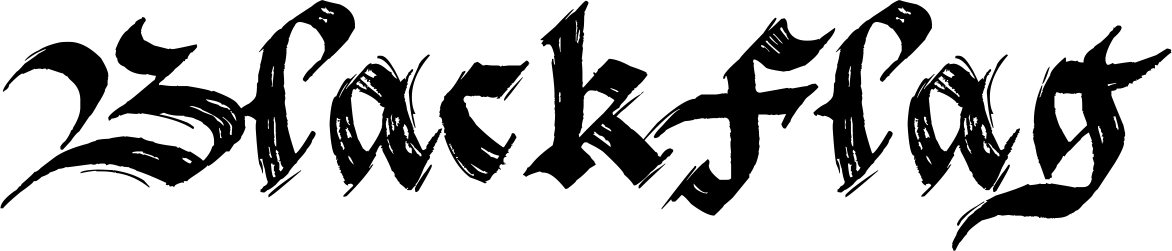
BlackFlag Font
BlackFlag is a gothic medieval font that has a natural paintbrush style to its design! If you want to create the unique typography you are imagining, that will have a middle-aged feel but is also modern and hand-drawn, you are at the right place.
The bold characters are sharp and pointy, and the letterforms include mixed case alphabets, and numbers but no punctuation. It may be hard to read, you might want to utilize BlackFlag for games, adverts, posters, games, and more.